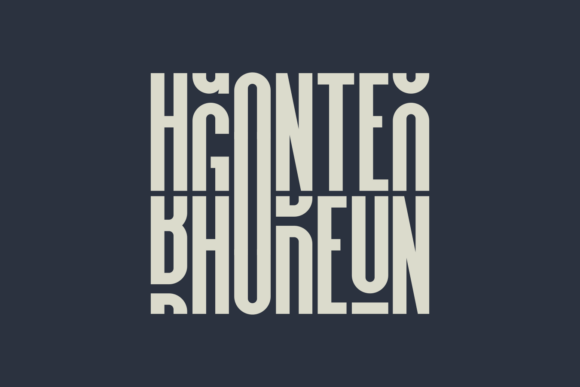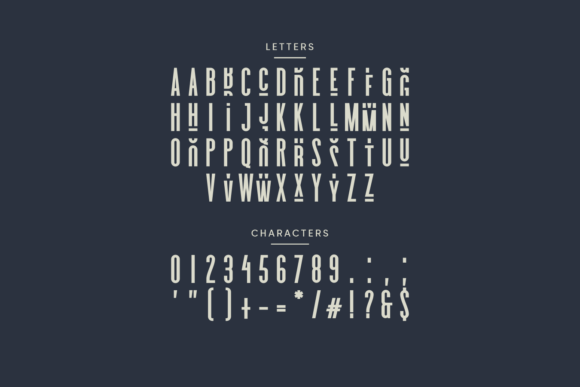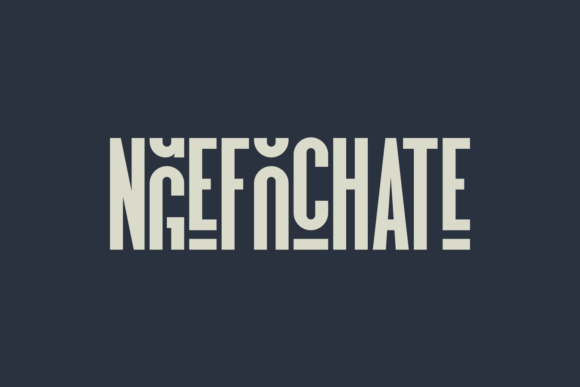
The Perfect Font for Making a Lasting Impression
Have you ever stared at a blank page, waiting for the perfect font to come to life? The search is over – meet the Hochate Font, a game-changing typography that will elevate your designs to new heights. With its elegant and luxurious look, this clipped style font is a must-have for logos and branding materials.
As a designer, you understand the importance of a font that makes a statement. The Hochate Font is more than just a font – it’s a tool that ensures your designs leave a lasting impression. Its clean, minimalist, and modern design makes it perfect for logos, headers, and headlines. Whether you’re working on a new project or revamping your brand, the Hochate Font is an invaluable asset to have in your design toolkit.
Hochate Font Key Features
- Font Family: Hochate is a sans-serif font family with a unique blend of modern and vintage characteristics.
- Unique Characteristics: The font features a distinctive rounded edge and subtle texture, giving it a unique and eye-catching appearance that sets it apart from other sans-serif fonts.
Hochate Font Review
First off, I want to say that Hochate Font has some really great qualities that make it stand out. ✨ The font’s unique blend of modern and vintage elements gives it a lot of character. ✨ The bold and playful feel is perfect for anything from creative projects to editorial pieces. ✨ The font’s high legibility also makes it suitable for body text, which is a major plus.
However, I do have some concerns about the font’s limitations. ⚠️ One thing that I think needs improvement is the font’s support for smaller text sizes. ⚠️ At certain sizes, the letters start to get a bit blurry and lose some of their definition. ⚠️ Additionally, I’ve noticed that the font doesn’t work as well with some specific font combinations, which can limit its versatility.
Overall, I’d say that Hochate Font is a great addition to any designer’s toolkit. It’s perfect for projects where you want to add a bit of personality and flair. However, it may not be the best choice for more formal or technical documents where clarity and precision are crucial.
- Unique blend of modern and vintage elements
- High legibility for body text
- Perfect for creative and editorial projects
- May not work well with smaller text sizes
- May not be suitable for formal or technical documents
For a more professional look, use Hochate Font in combination with other elegant fonts, such as Great Vibes or Pacifico.
For a more cohesive design, use Hochate Font consistently throughout your project, and experiment with different font sizes and styles to create visual interest.
For a more engaging presentation, use Hochate Font in combination with images and other design elements to create a visually appealing slide.
Hochate Font is ideal for use in creative projects, such as:
- Artistic posters and prints
Remember to use Hochate Font consistently and in combination with other design elements to create a cohesive and visually appealing design.
Alternatives to Hochate Font for Designers
The Great Vibes Font is a beautiful script font with elegant and cursive qualities. It is ideal for use in invitations, wedding designs, and any other creative projects where a touch of sophistication is required. When to use: For projects requiring a classic, high-end feel. How it compares to Hochate Font: Great Vibes has a more refined and elegant feel compared to Hochate, which is more playful and fun.
Carolyna Pro is a modern script font that is perfect for creating a sense of luxury and style. It features a flowing, cursive design that is ideal for use in branding, packaging, and advertising. When to use: For projects requiring a modern and sophisticated look. How it compares to Hochate Font: Carolyna Pro has a more polished and refined feel compared to Hochate, which has a more hand-drawn and whimsical quality.